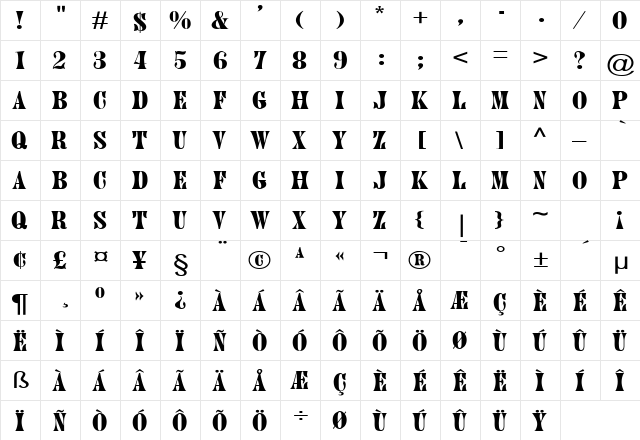
June Wide Normal
Design Context for June Wide Typeface
June Wide is a composed and adaptable typeface that performs quietly and consistently across a wide range of design contexts.